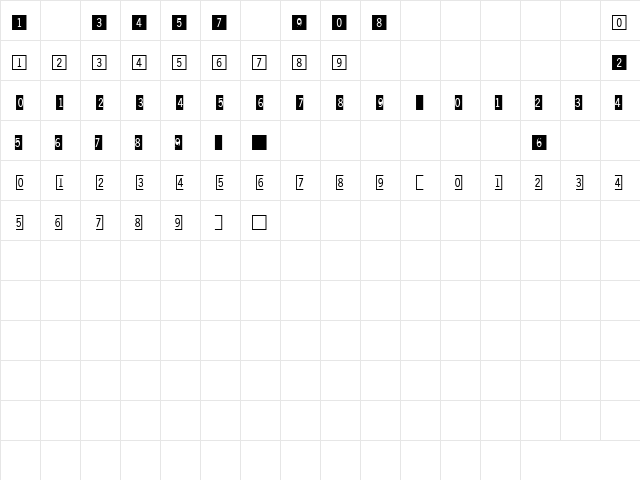
DigitsandPairsB Regular Font Preview
DigitsandPairsB Regular
Design Context for DigitsandPairsB Typeface
DigitsandPairsB has a distinctly futuristic character, with geometric precision and clean angles that feel at home in technology, gaming, and sci-fi contexts.